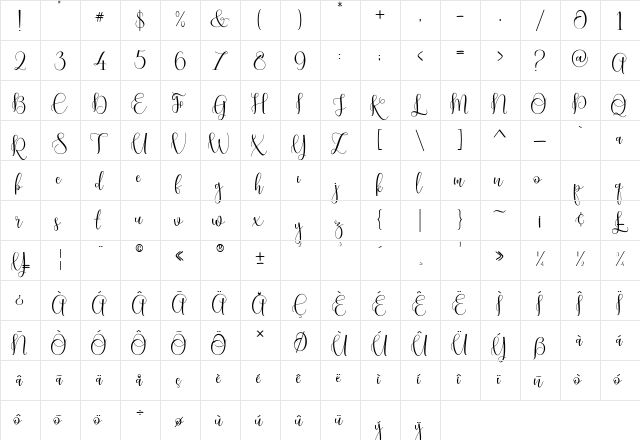
Marihouse Script Regular
Design Context for Marihouse Script Typeface
Marihouse Script flows with the natural rhythm of handwritten lettering, making it ideal for designs that call for warmth and personal expression.
Font Pairing: Combine Marihouse Script with a simple geometric sans for maximum contrast — the tension between flowing curves and clean structure is a classic typographic pairing.
Pro Tip: Use Marihouse Script for short runs of text — names, titles, or taglines. Extended body copy in script faces tires the eye quickly.